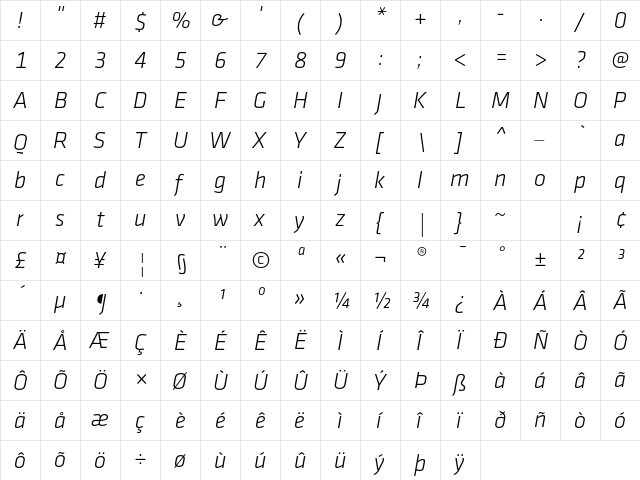
Klavika Light Light Italic Font Preview
Klavika Light Light Italic
Klavika Light Light Italic Font Details
| Style | Light Italic |
| Foundry | Process Type Foundry |
Design Context for Klavika Light Typeface
Klavika Light takes a measured approach to typography — its balanced proportions and neutral character make it a reliable workhorse for both digital and print work. The dynamic lean of this cut emphasises speed and emphasis in any layout. Its slender proportions lend an understated elegance to any composition.
Pro Tip: Use Klavika Light for emphasis, pull quotes, and subheadings where its slanted energy can add rhythm to the layout.